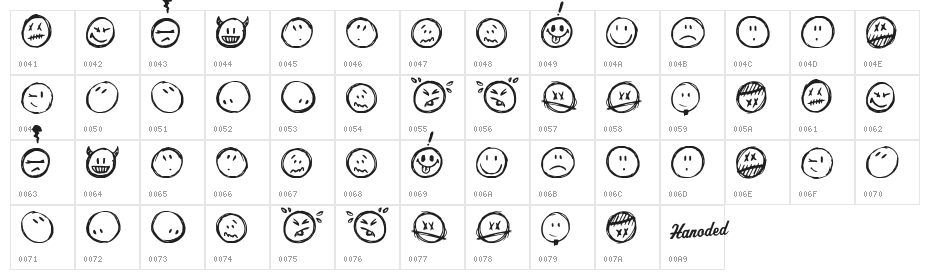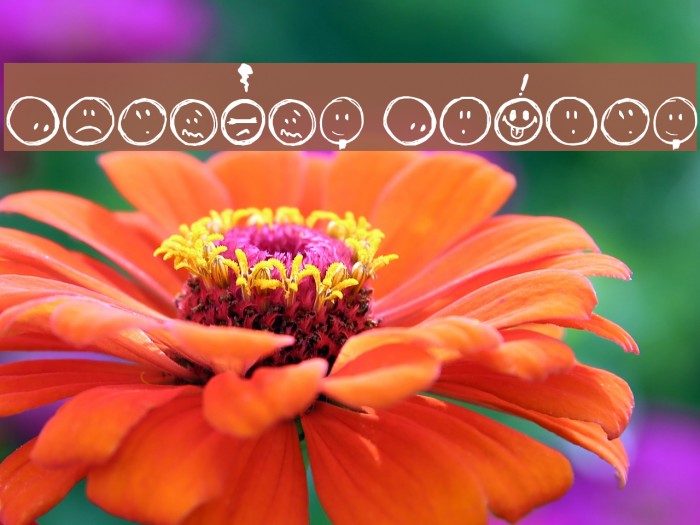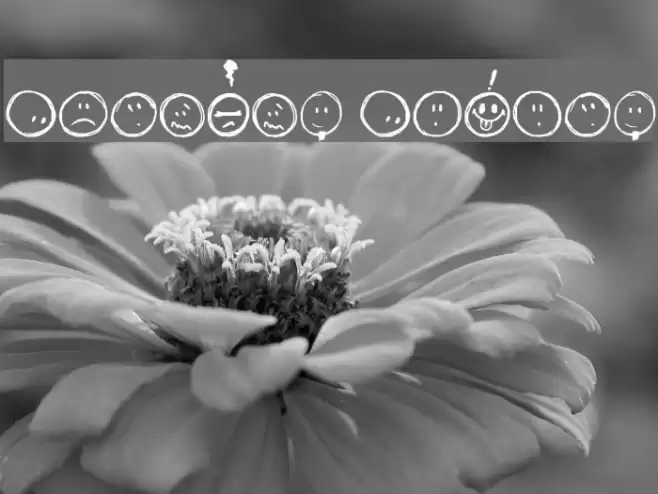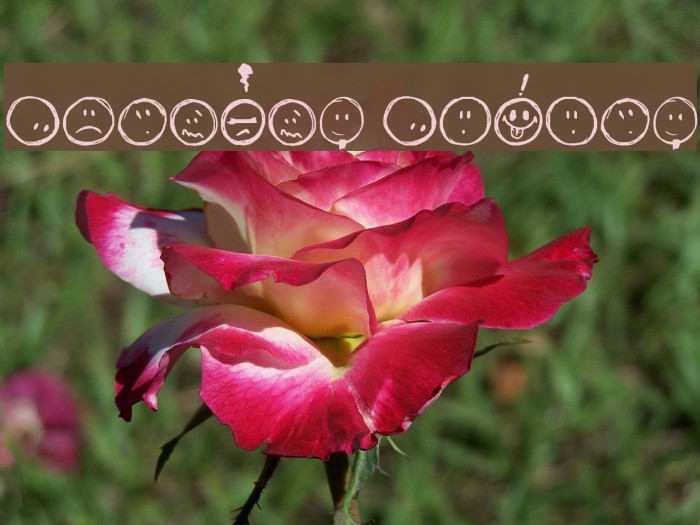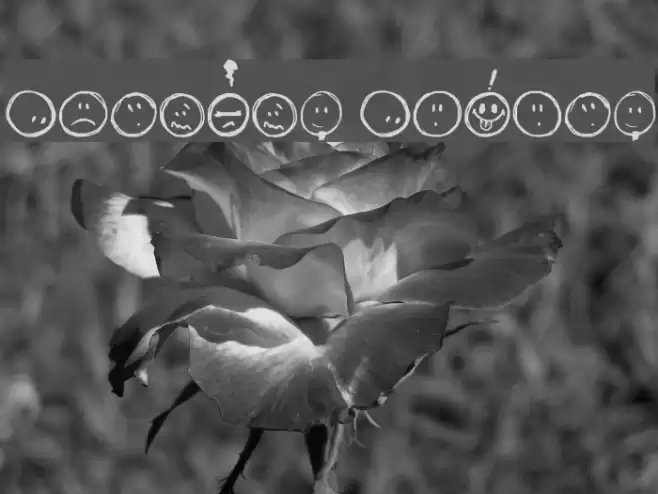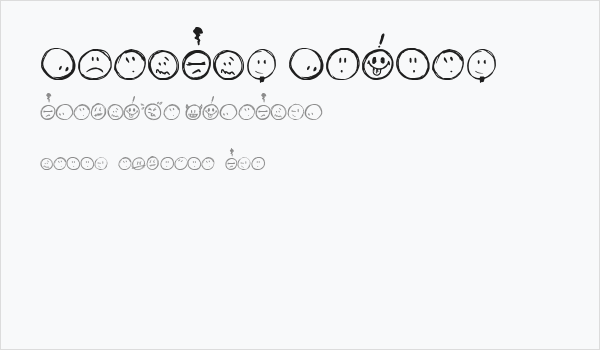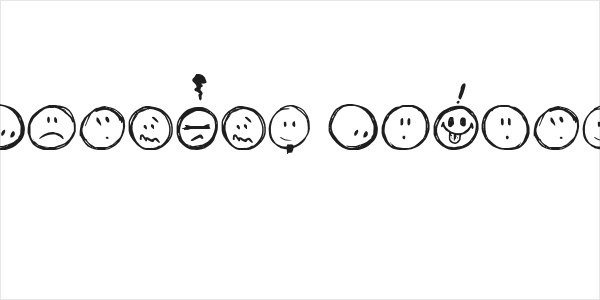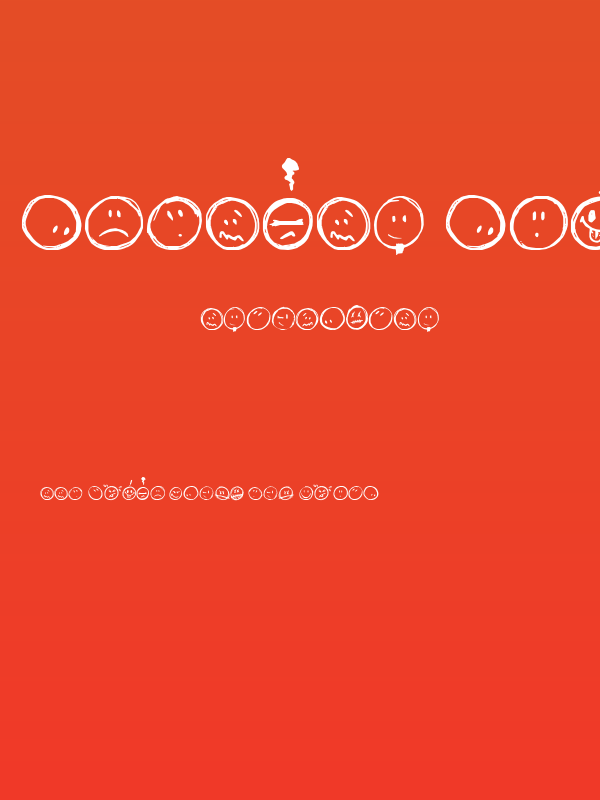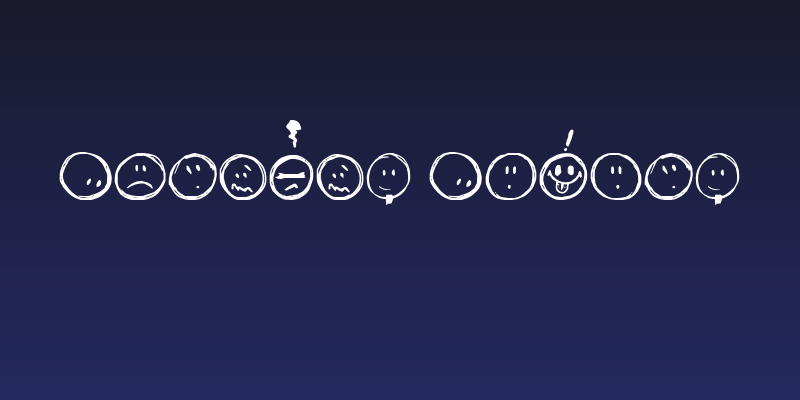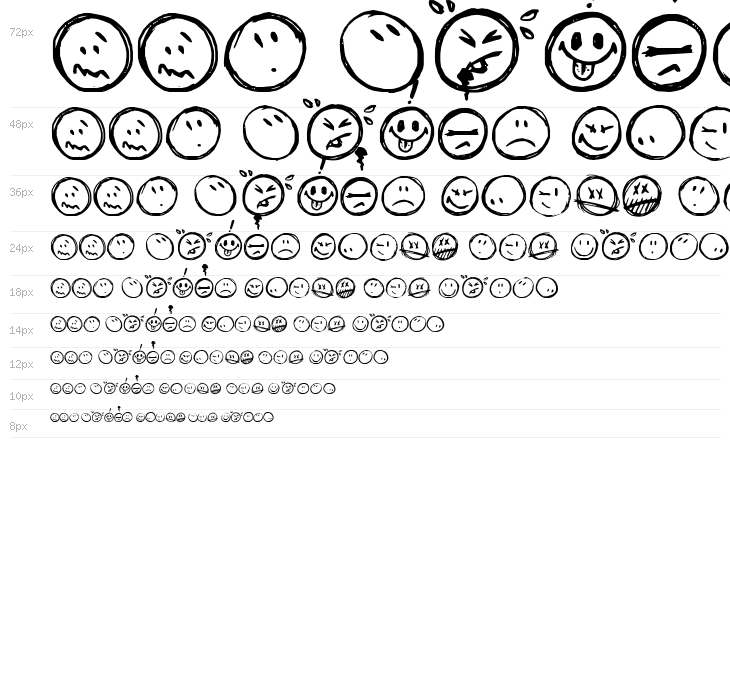
Sketchy Smiley Font
Sketchy Smiley Description
This set of sketchy smiley faces features a variety of expressive emotions, each captured in a hand-drawn style. The characters are encased in circles, with each face displaying a unique expression ranging from happy and excited to sad and angry. The lines are intentionally rough and uneven, giving a playful and informal appearance. The use of simple shapes and minimal details allows for quick recognition of each emotion, making them suitable for casual or humorous contexts. The overall style is whimsical and lighthearted, perfect for adding a touch of fun to any project.
| Overall Style | Whimsical |
| Use Case | Decorative elements, casual graphics, educational materials. |
| Proposed Projects | Ideal for use in comic strips, casual greeting cards, playful social media graphics, or children's educational materials. |